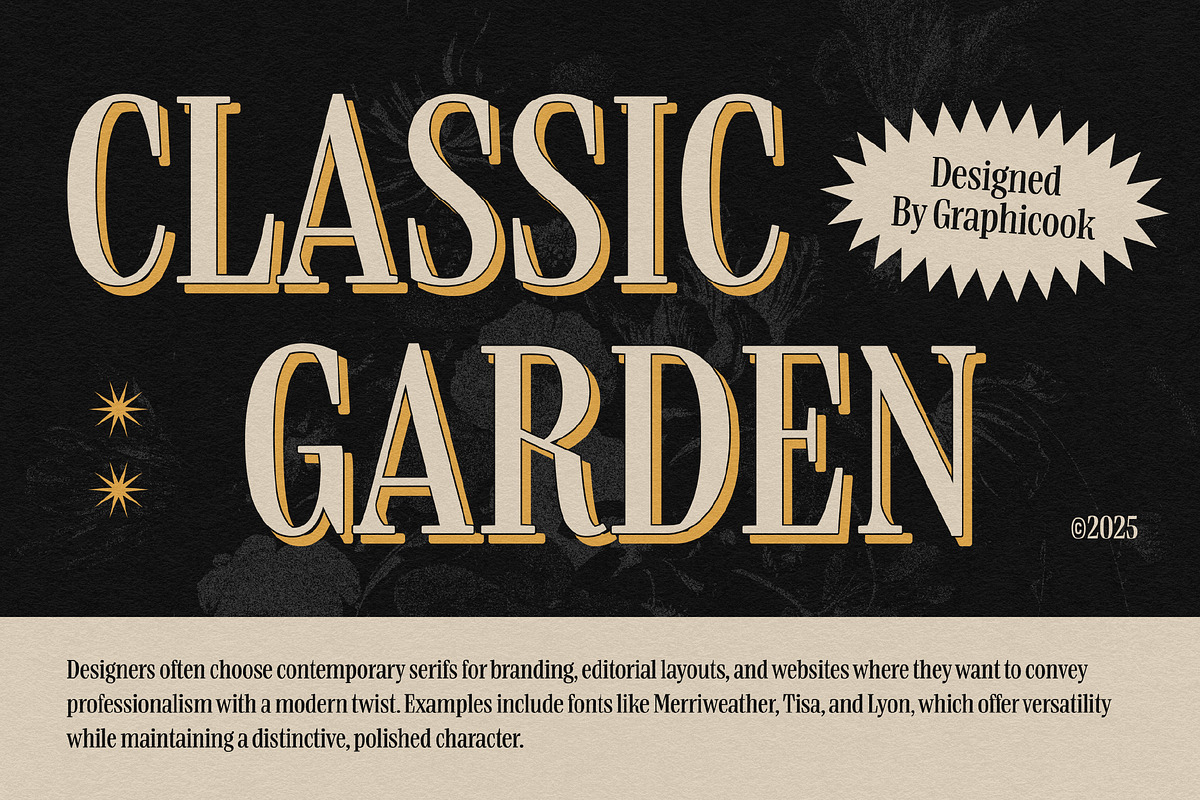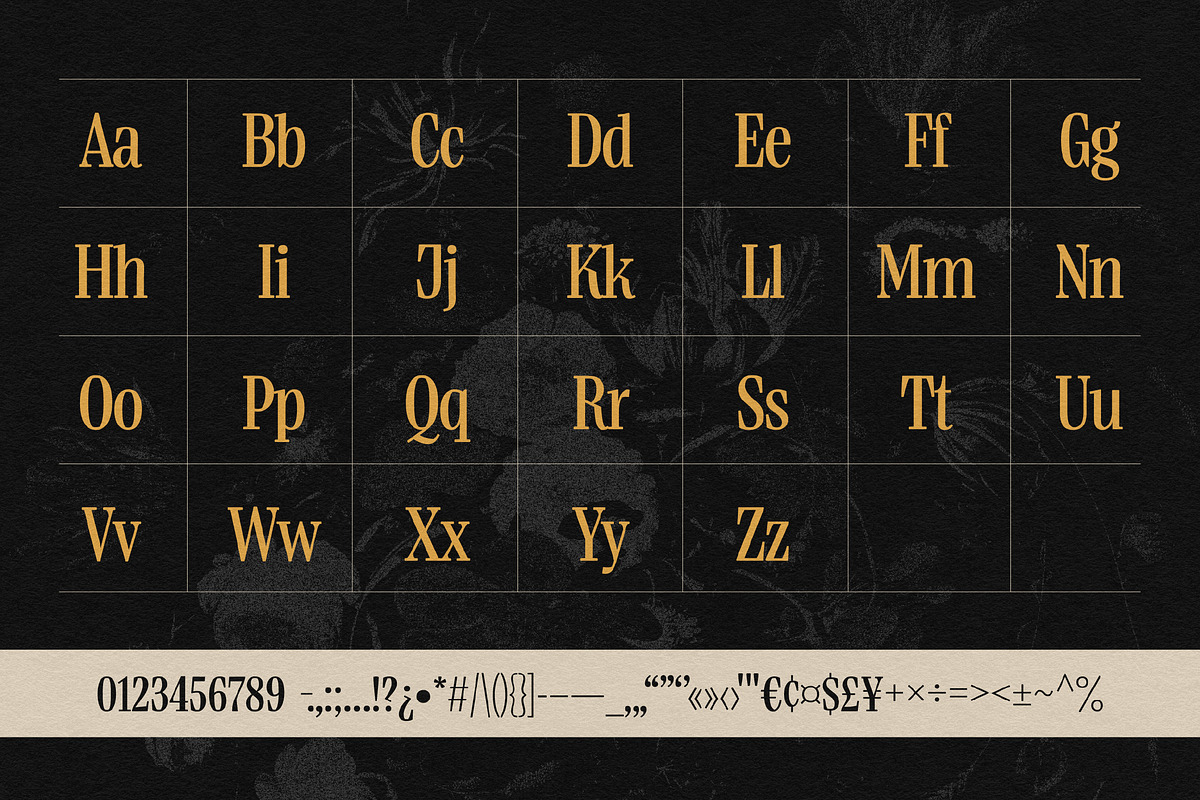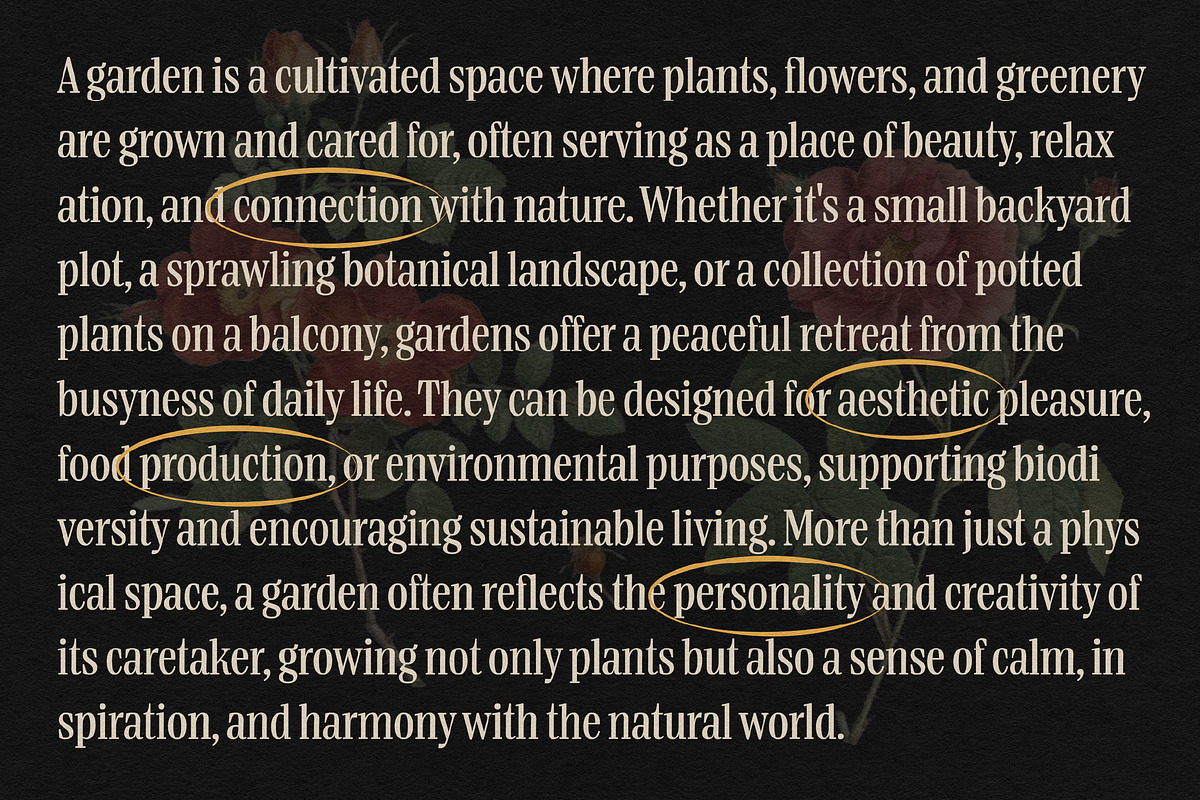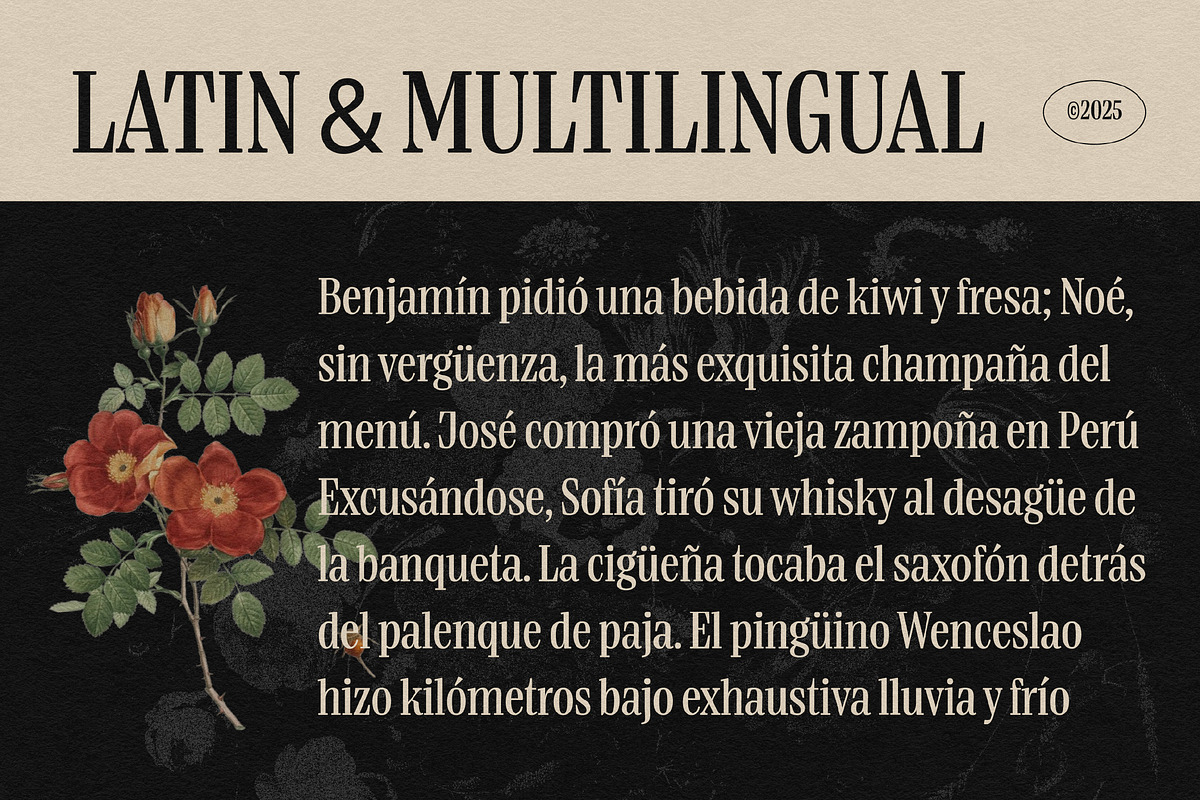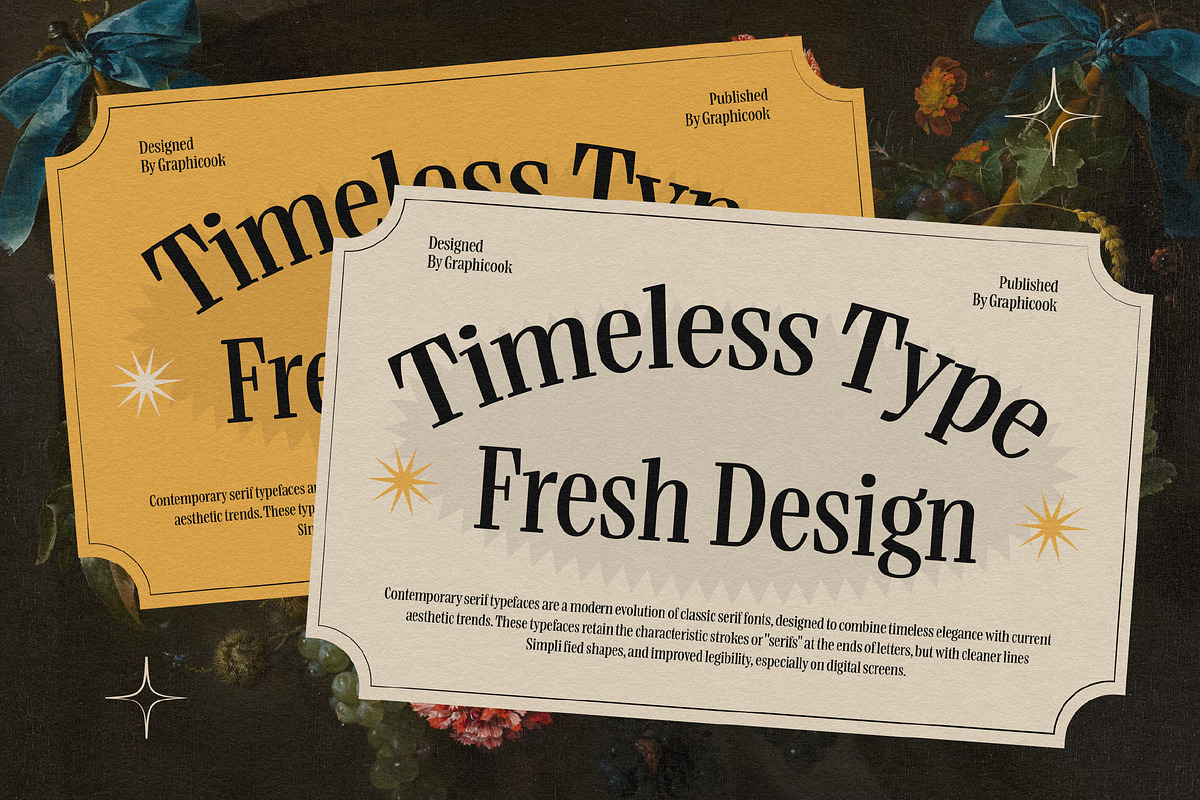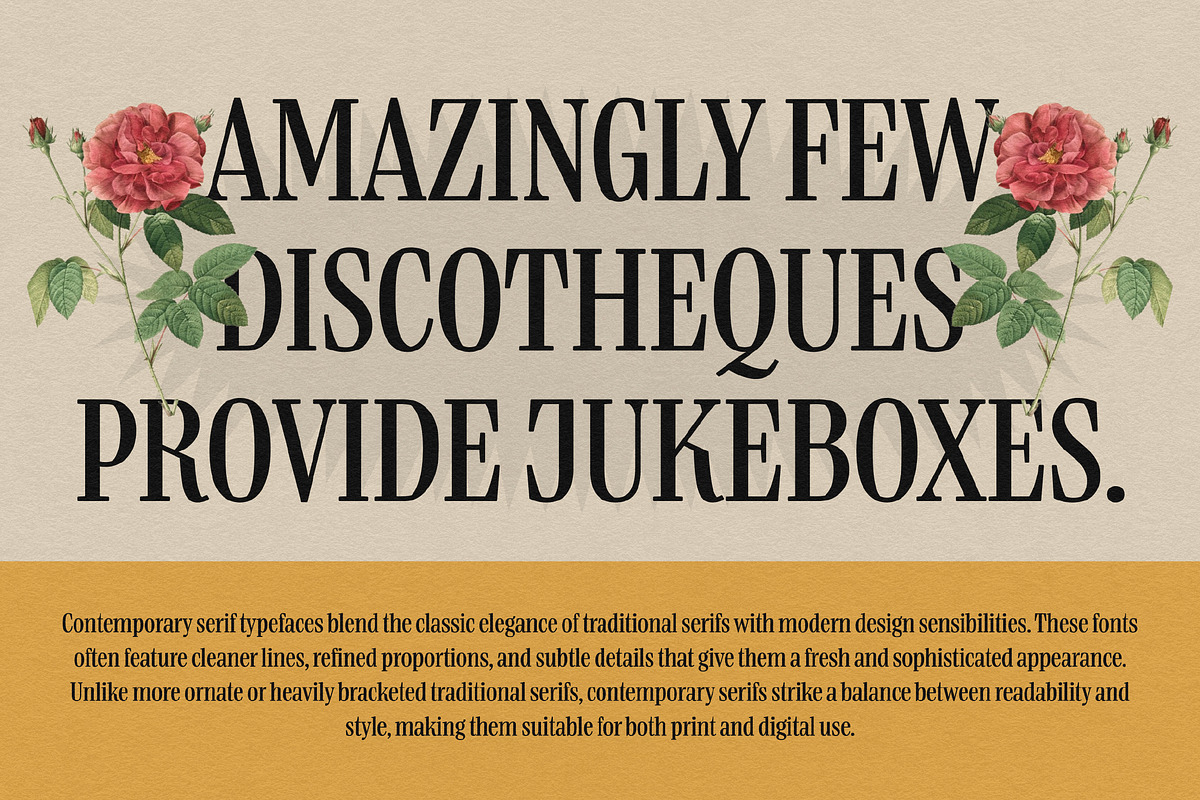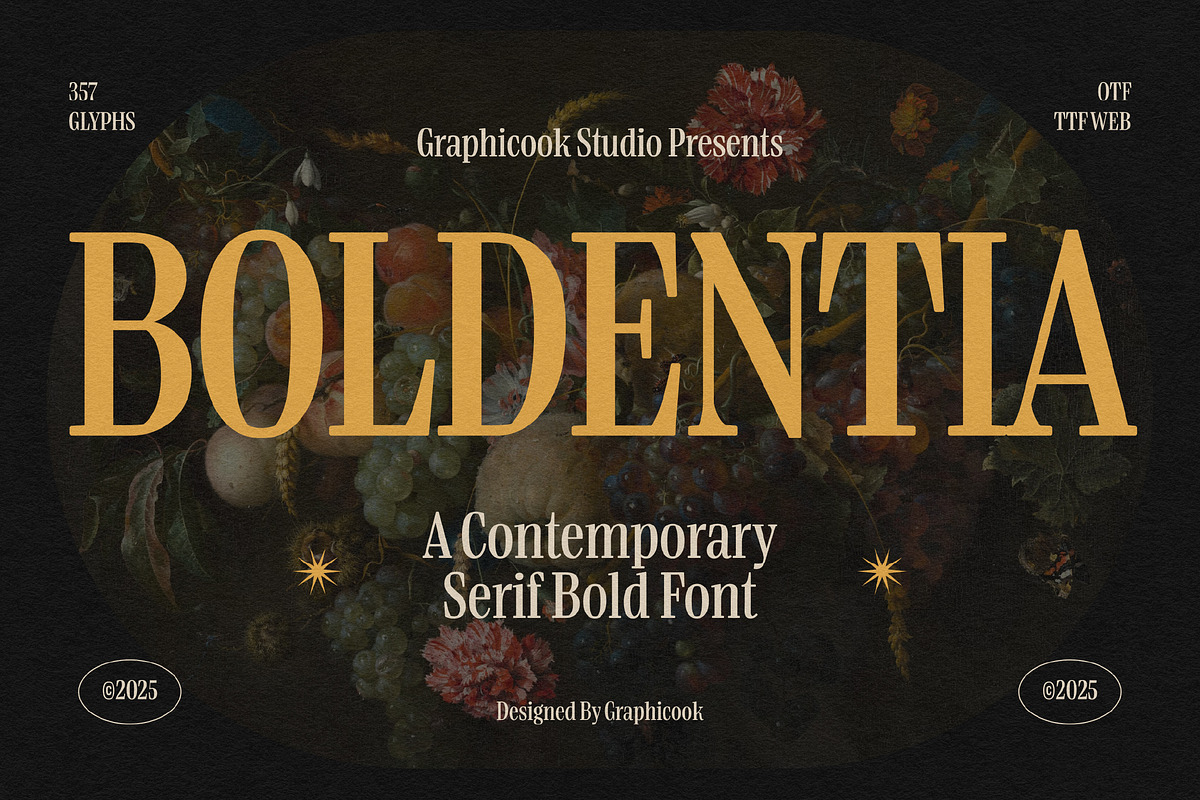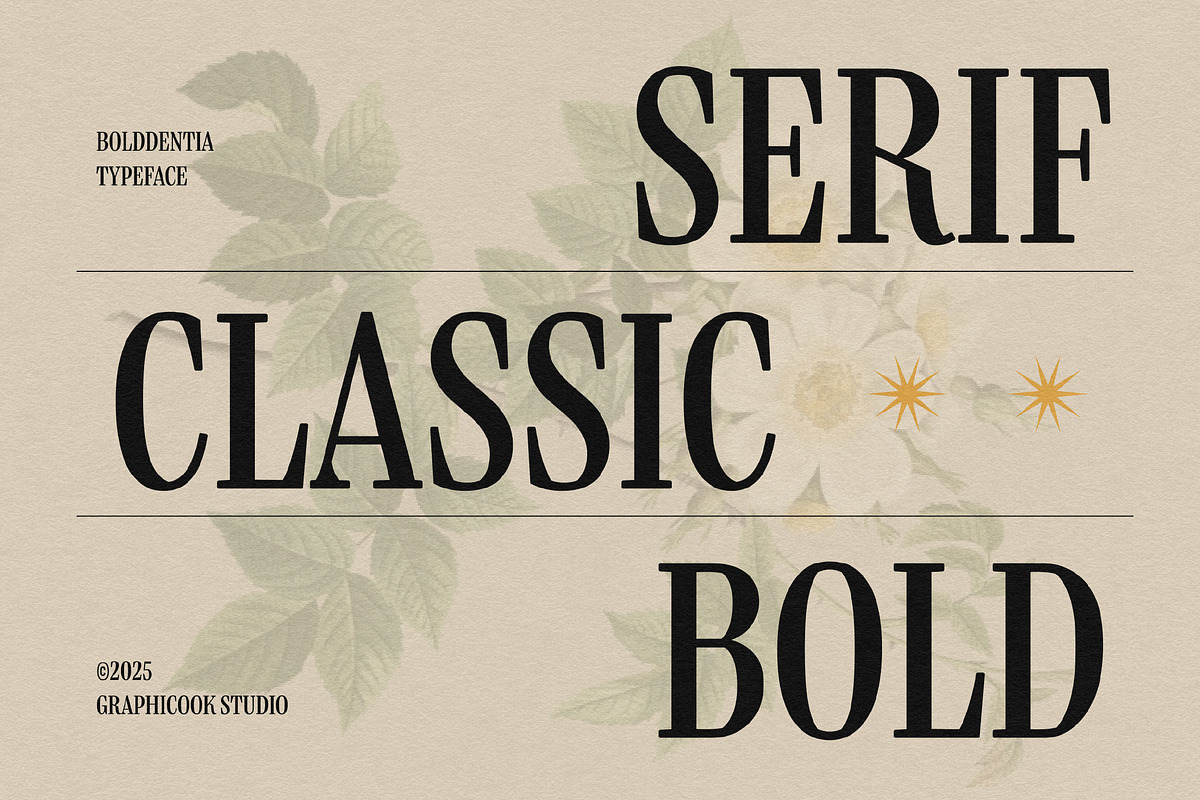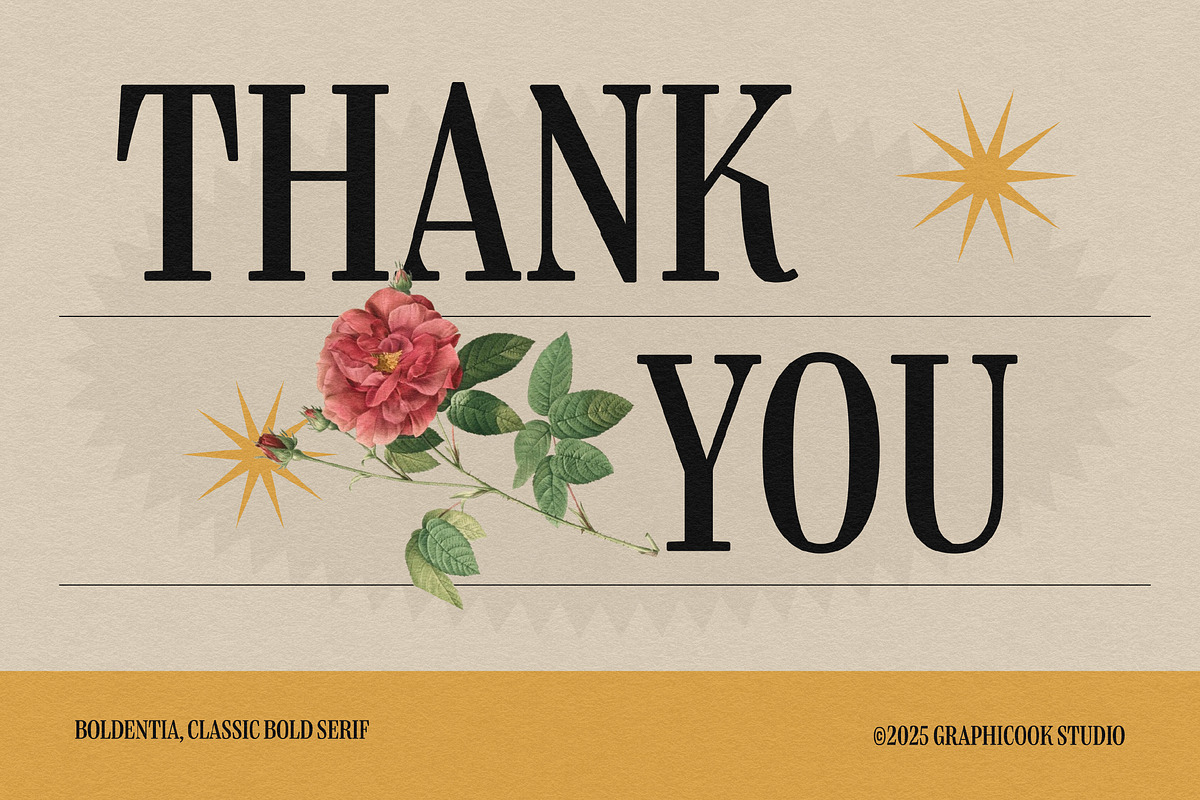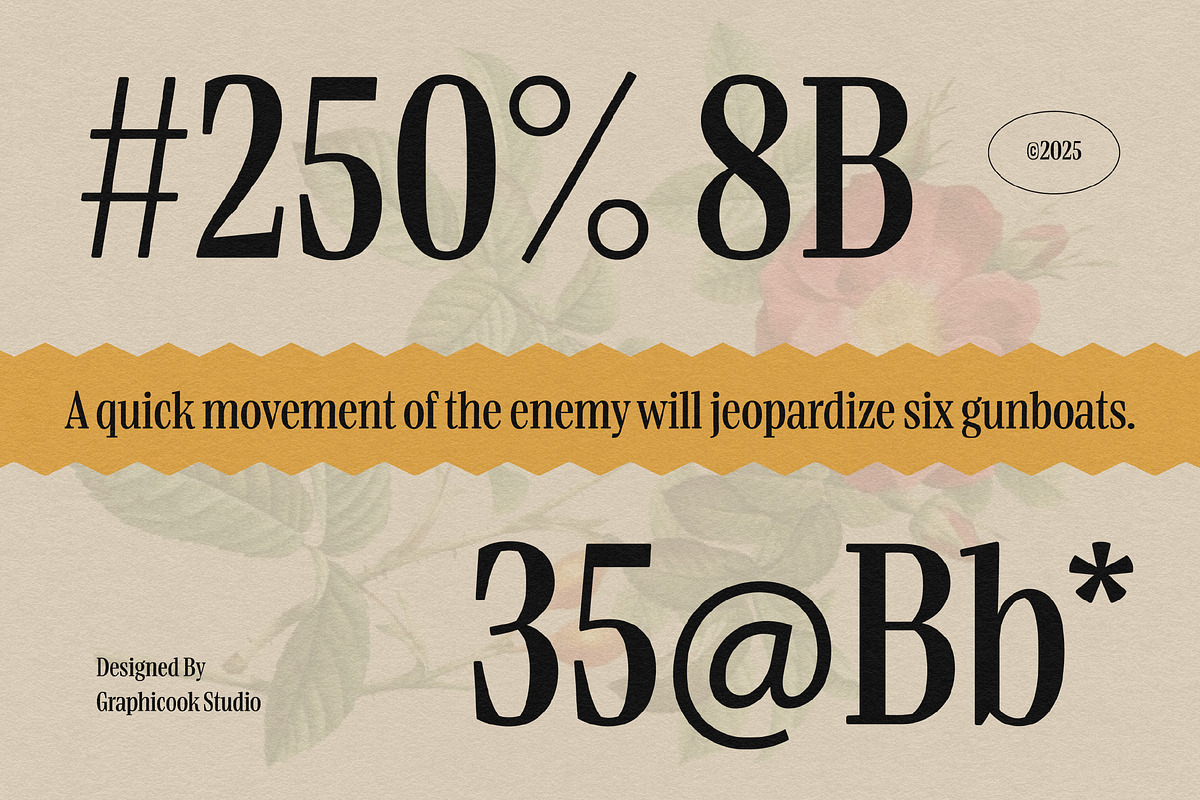
Boldentia
Boldentia is a serif font styled with vintage elegance, making it ideal for magazines, art posters, or sophisticated branding projects.
It is perfect for headlines, logotypes, magazines, packaging, quotes, movies, games, cover albums, book covers, and flyers, it's a perfect solution for creating eye-catching designs that stand out in any context.